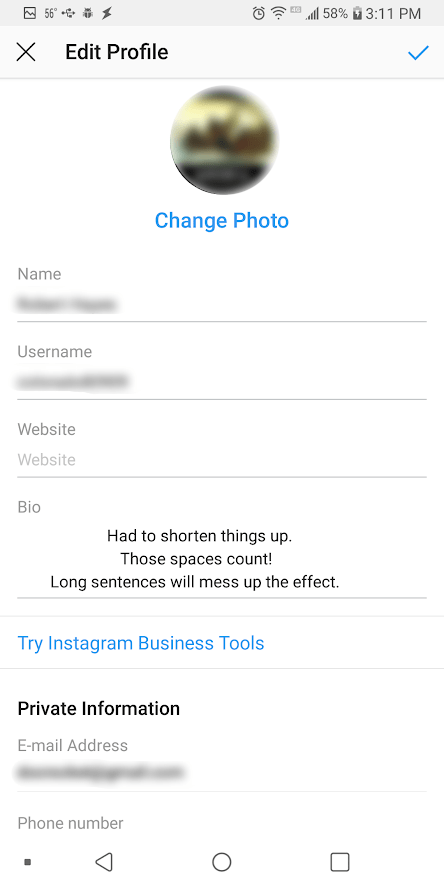
You may be wondering how to change the font in your Instagram bio if you've seen examples of profiles with non-standard fonts on the platform. If you use a different font on Instagram, it can grab attention and make your profile and copy stand out, and it's actually very easy to do. You don't even need to download any special app.
To change the font in your Instagram bio, or indeed in the captions on your Instagram posts, all you need to do is copy the text into one of the many Instagram font generator tools, choose the font you like and paste it in. It's as easy as that, but we'll illustrate the process below.
Instagram remains one of the most popular social media platforms for artists and designers due to its focus on imagery. To make your profile stand out in a crowded marketplace – which you might particularly want to do if you're getting to grips with how to sell on Instagram, an unusual font can help. Just remember that you don't want it to look childish, amateur or cheesy, so do take some time to choose which Instagram font to use. See some more pointers at the bottom of this guide.
Need some inspiration? Check out our list of free fonts to help you decide on the type of font you might like. The odd emoji is also good for breaking things up and adding a bit of personality and colour, but don't go overboard or your bio may become off-putting or hard to read.
First up, you'll need to open up an online Instagram font generator tool. There are many available on the web, including Insta Fonts , Fancy Fonts and Cool Symbol , but one of our favourites is Meta Tags Font Generator , because it makes it super easy to preview how your font will look live on your Instagram profile.
Type or paste in the text that you want to change into the box that reads 'Edit text'. Below, you'll see a list of fonts that can be used in Instagram, together with previews of how your text would look in each of them. If you're on a desktop computer or tablet, you'll also see a mockup of how your text will look in an Instagram profile on the right.
Meta Tags Font Generator makes it easy to preview your chosen font (Image credit: Meta Tags Font Generator)Some of these fonts are pretty simple; some use emoji and symbols, which may either look creatively inspiring or completely daft; and some will be almost impossible to read. Once you've found the font that works for you, use the 'Copy' button to copy the text.
Now open Instagram, click on your profile picture, and click the Edit Profile button. In the form that appears, paste in your text into the appropriate box.
Click Submit and you are done.
If you don't like the look of the font you've chosen, you can easily go back to step one and choose another. If you're using an iPhone or iPad and prefer a wider selection of fonts, check out the Fonts – for Instagram app for OS. Note that the same technique should also work to change the font in Instagram captions. Just right click and paste the text into the caption field when you're making an Instagram post.
A crucial thing to remember is that changing the font in your Insta bio involves the use of unicode characters, which are often not accessible for people who use screen readers. This means you definitely don't want to put your whole bio, or entire captions, in a different font. Most people only change the font for their name, or a small part of the description.
Remember, too, that updating the text itself can have as much impact as changing the font, if not more. The ideal Instagram bio is generally short and sweet: a few snappy words rather than long sentences.
Don't forget to include any relevant links to other accounts you manage. To discover other ways to tweak your account and get more from Instagram, see our top Instagram tips.
Now that you know how to change the text font on Instagram, let's think about when to do it.
Not every caption or story needs a fancy font. While they look tempting, try to keep a few ground rules in mind.
Do not overdo it. Posts with a stylish text font can really stand out. But if you use different fonts all the time, it might be the other way around.